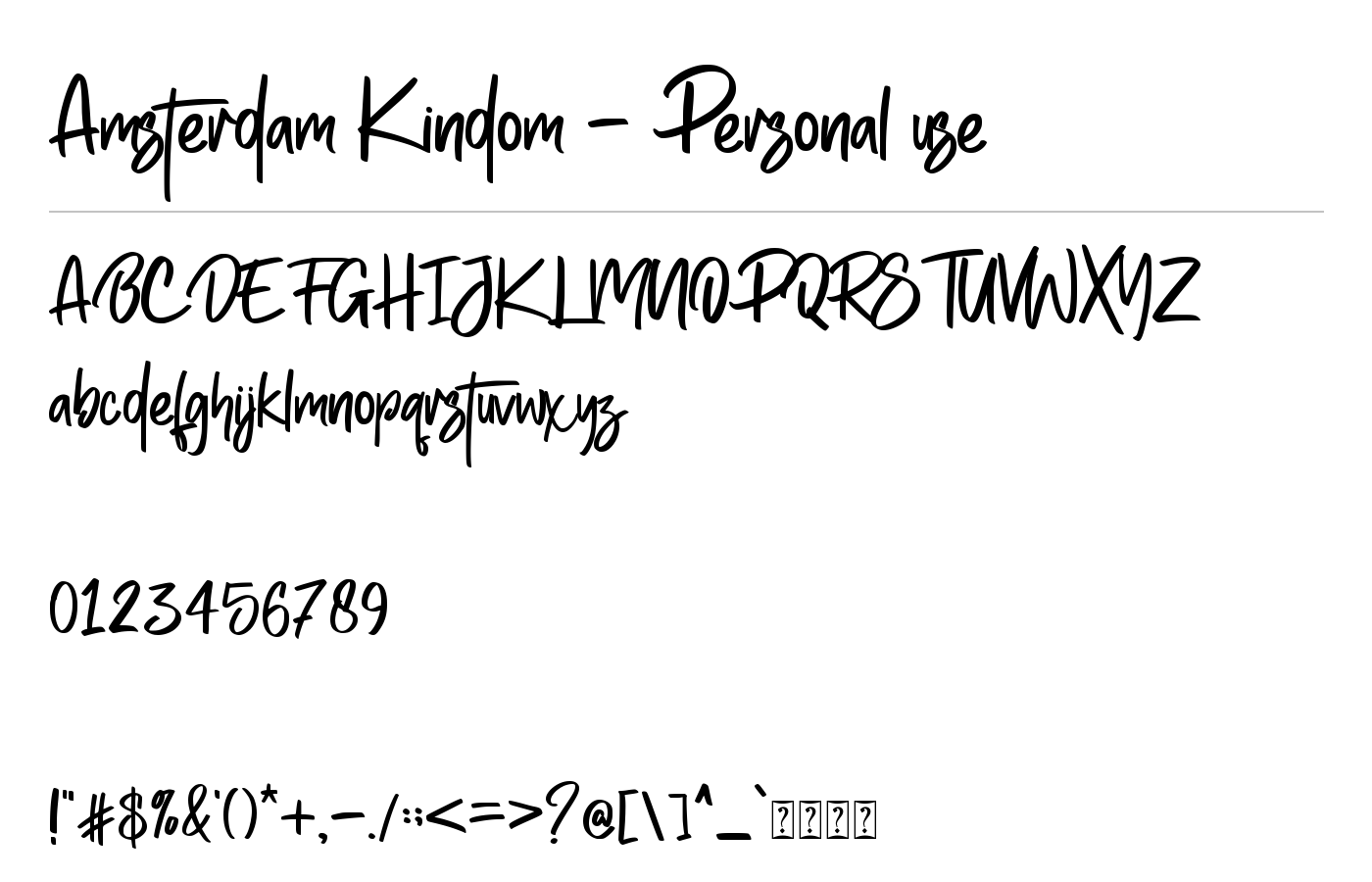
Amsterdam Kindom is a lively, handwritten script font that feels personal and expressive, featuring tall, narrow letterforms with a casual yet refined touch. Its medium weight and slightly irregular strokes give it a friendly, approachable vibe, making it ideal for creative projects, informal branding, and playful headlines. This font works well where a natural, human feel is desired, such as invitations, social media graphics, and personal branding.
Amsterdam Kindom - Personal use Font
About Amsterdam Kindom - Personal use Font